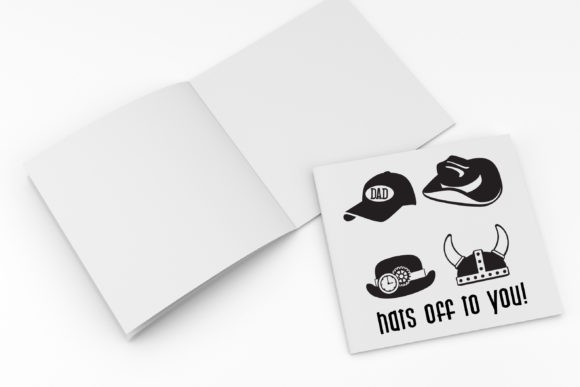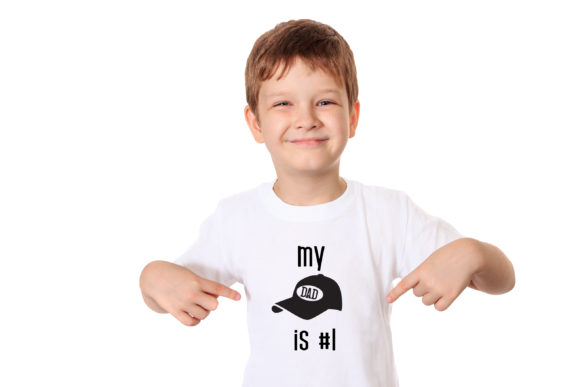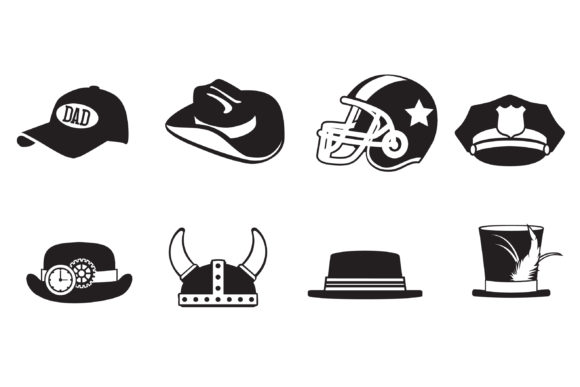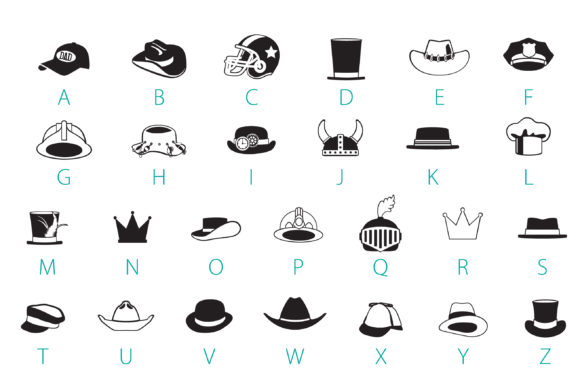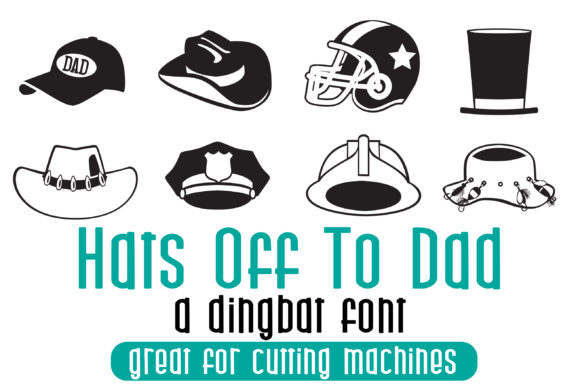
Hats off to Dad Font: A Unique Dingbat Font for Designers and Crafters
Are you tired of using the same old fonts for your designs? Look no further! The “Hats off to Dad Font” is a stunning dingbat font that celebrates all things daddy. This unique font features 26 hats that dad typically wears, making it a perfect addition to your font collection. In this article, we’ll dive into the world of dingbat fonts, explore the features of “Hats off to Dad Font,” and discuss how designers and crafters can make the most of this amazing font.
What is a Dingbat Font?
A dingbat font is a type of font that features symbols, icons, or graphics instead of letters. These fonts are often used in design and crafting projects to add a touch of personality and whimsy. Dingbat fonts can range from simple shapes and icons to intricate illustrations and graphics. The “Hats off to Dad Font” is a prime example of a dingbat font, featuring 26 unique hat designs that are sure to delight.
Features of Hats off to Dad Font
The “Hats off to Dad Font” is a one-of-a-kind font that boasts an impressive collection of 26 hat designs. Each hat is carefully crafted to represent a different aspect of dad’s personality, interests, or professions. From a baseball cap to a top hat, this font has it all. Here are some of the key features of this amazing font:
- 26 unique hat designs, each representing a different aspect of dad’s personality or interests
- Carefully crafted illustrations that are both detailed and playful
- Easily scalable to fit any design project
- Perfect for Father’s Day designs, birthday cards, and other celebrations
How Designers and Crafters Can Use Hats off to Dad Font
The “Hats off to Dad Font” is a versatile font that can be used in a variety of design projects. Here are some ideas for designers and crafters:
1. Father’s Day Cards and Gifts
Show your dad how much you care with a custom-made Father’s Day card or gift. Use the “Hats off to Dad Font” to add a personal touch to your design. You can create a beautiful card with a hat-themed design, or add a hat graphic to a gift tag or sticker.
2. Birthday Cards and Celebrations
The “Hats off to Dad Font” is not just limited to Father’s Day designs. You can use it to create birthday cards, anniversary gifts, and other celebrations. Imagine a custom-made birthday card with a hat design that matches the birthday boy’s personality!
3. Branding and Marketing Materials
The “Hats off to Dad Font” can also be used in branding and marketing materials. If you’re designing a logo or brochure for a company that wants to showcase its playful side, this font can be a great addition. You can use the hat graphics to create a fun and engaging design that captures the company’s personality.
4. Crafting Projects
Crafters can also use the “Hats off to Dad Font” to add a personal touch to their projects. You can use the hat graphics to create custom iron-on transfers, stickers, or stencils. Imagine a handmade t-shirt or tote bag with a hat design that celebrates dad’s love for a particular hobby or interest!
The “Hats off to Dad Font” is a unique and versatile dingbat font that celebrates all things daddy. With its 26 hat designs, this font is perfect for designers and crafters who want to add a touch of personality and whimsy to their projects. Whether you’re creating a Father’s Day card, birthday gift, or branding materials, this font is sure to delight. So why wait? Get your hands on the “Hats off to Dad Font” today and start creating stunning designs that celebrate the special dad in your life!